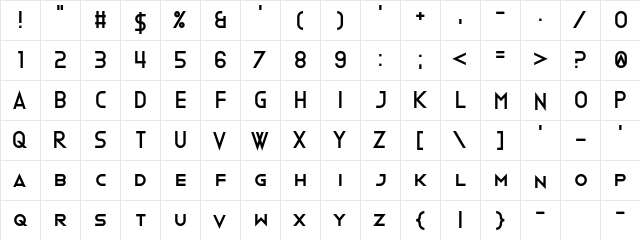
Clone Machine Regular
| Designer | Allison James |
Design Context for Clone Machine Typeface
Clone Machine takes a measured approach to typography — its balanced proportions and neutral character make it a reliable workhorse for both digital and print work.